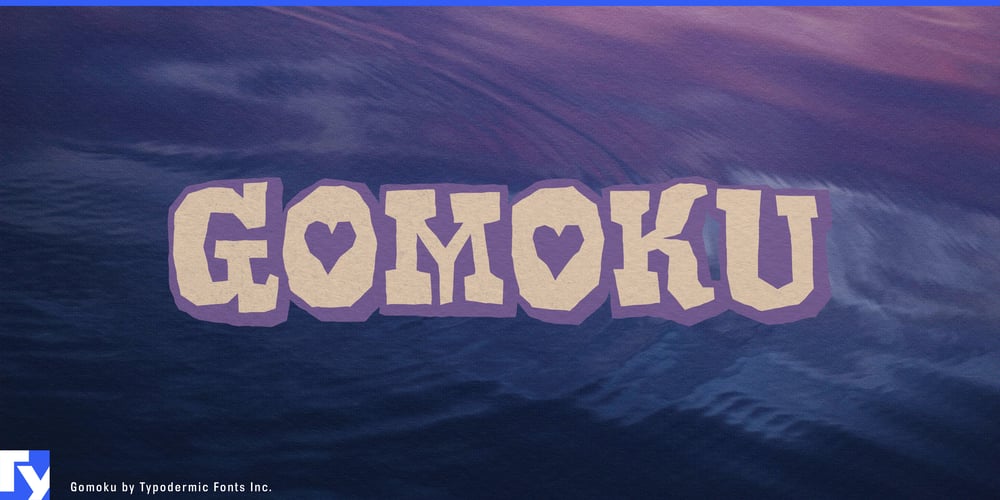
Gomoku Font Family was designed by Ray Larabie and published by Typodermic. Gomoku contains 2 styles and family package options. Step into a world where typography wears a smile with Gomoku, a typeface that brings the joyful spirit of handcrafted paper cut-outs to the digital realm. This delightfully chunky slab serif font doesn’t just catch the eye—it gives it a playful wink and a warm hug.Gomoku’s foreground layer is a typographic feast, with letterforms so thick and juicy you’ll be tempted to reach out and touch them. But the real magic happens when you activate its optional background layer. Suddenly, your text springs to life with depth and dimension, as if each character has been lovingly snipped from colorful construction paper and delicately arranged by a master craftsperson. This isn’t just a font; it’s a mood-lifter. Gomoku transforms ordinary words into extraordinary visual treats, perfect for designs that need to speak volumes with a cheerful voice. Imagine it splashed across a children’s book cover, bringing warmth to a cafe’s menu board, or adding a dash of whimsy to a corporate presentation that dares to be different.Gomoku’s linguistic versatility is as impressive as its visual charm. It speaks fluently in a vast array of Latin-based European languages, making it a globe-trotting typographic ambassador of joy. From the fjords of Norway to the plains of Hungary, Gomoku is ready to spread its paper-cut cheer across borders and cultures. In a world often taking itself too seriously, Gomoku is a refreshing reminder that design can be both bold and playful. It’s the typographic equivalent of a surprise party—unexpected, delightful, and guaranteed to leave a lasting impression. Whether you’re crafting invitations for a summer festival, designing packaging for artisanal sweets, or creating signage for a quirky boutique, Gomoku brings an irresistible blend of nostalgia and contemporary charm to your project.Embrace the chunky, and celebrate the quirky. With Gomoku in your design toolkit, you’re not just setting type—you’re crafting experiences that are impossible to forget and irresistible to share.